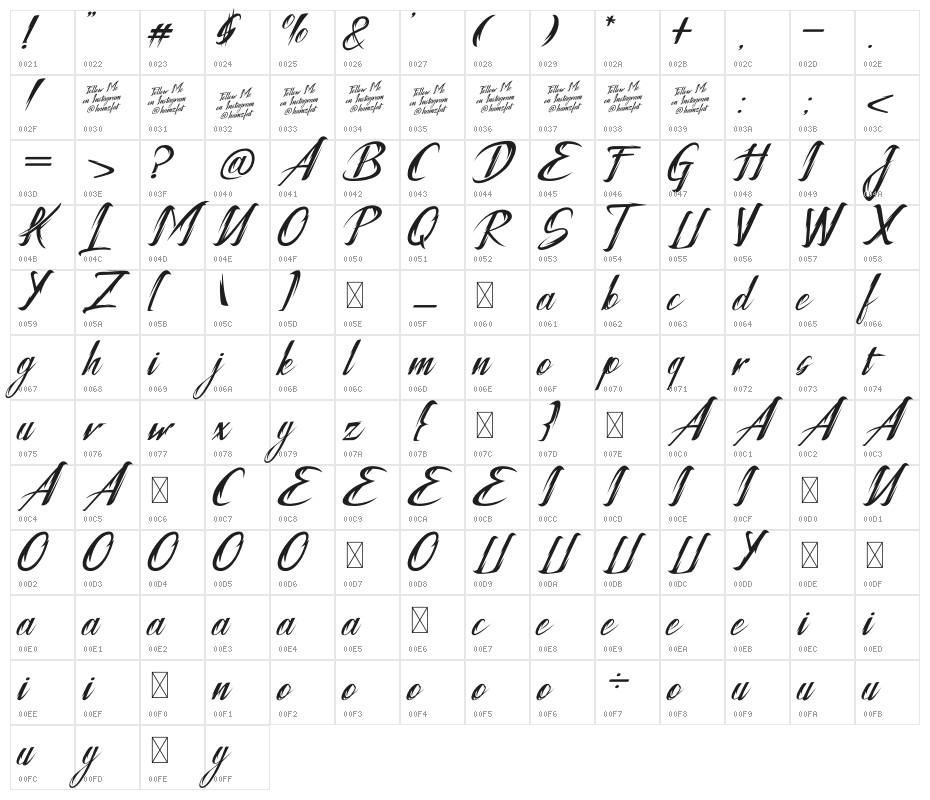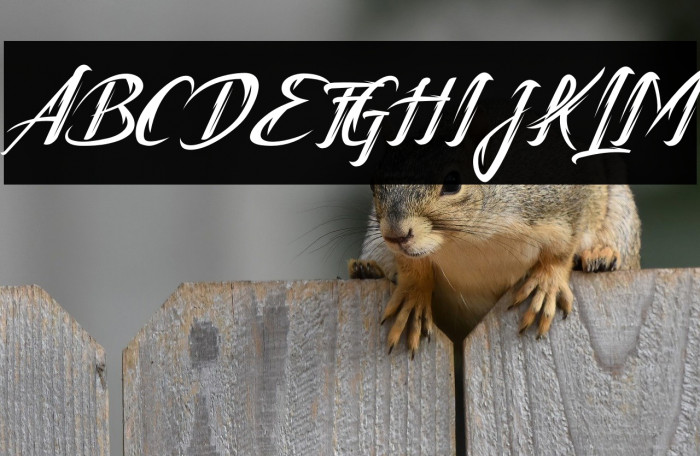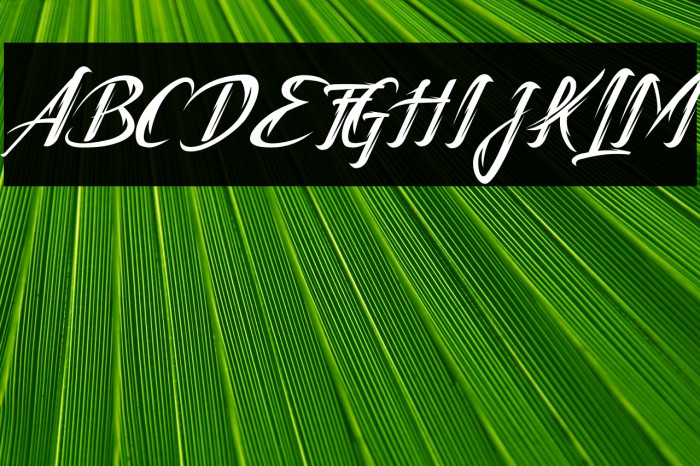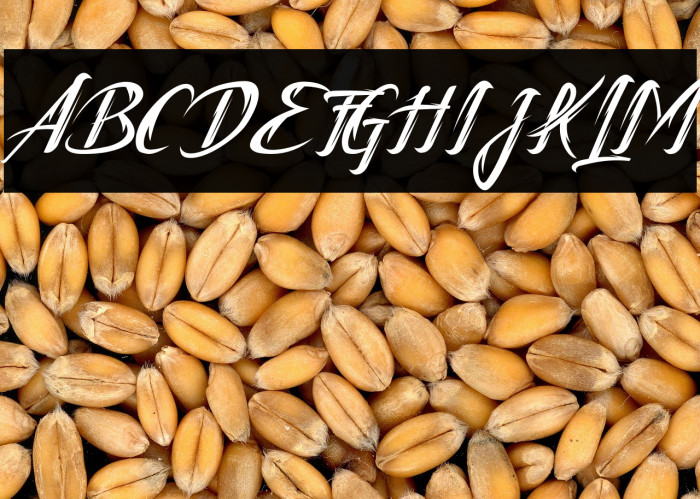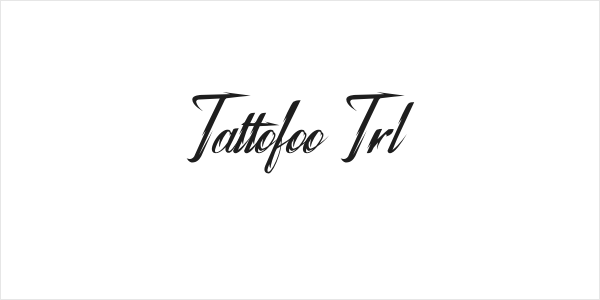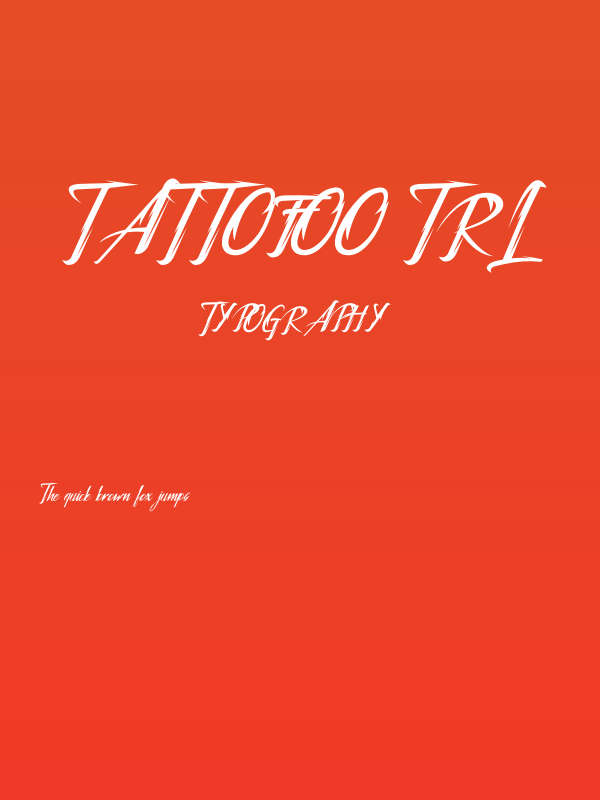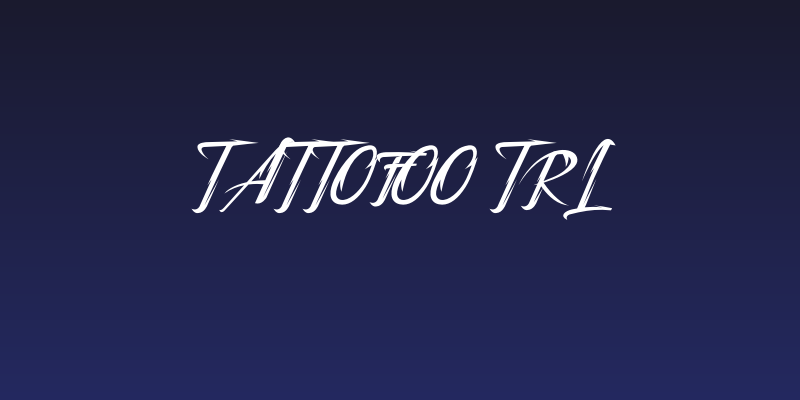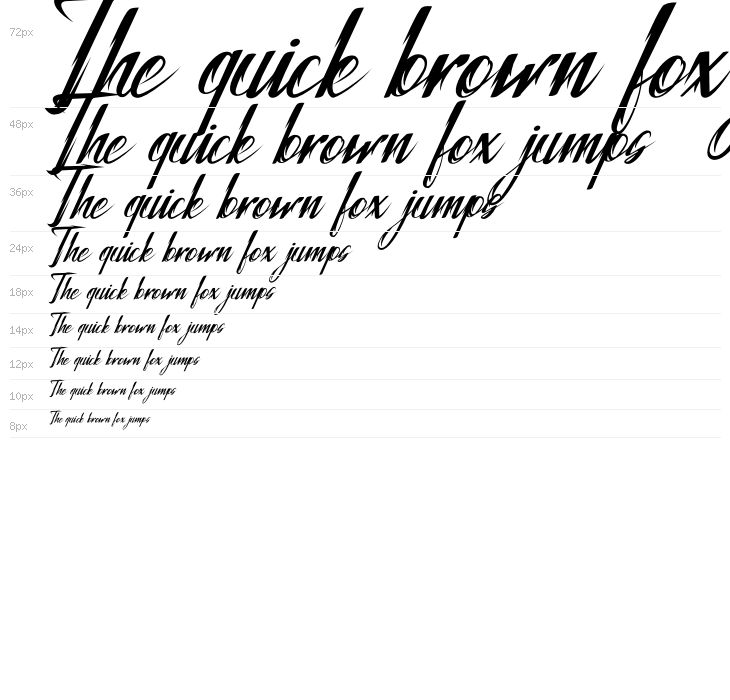
Tattofoo Trl Font
Tattofoo Trl Description
This font features a dynamic and expressive script style, characterized by its bold, sweeping strokes and elegant curves. The letters are highly stylized, with a sense of motion and fluidity that suggests a handwritten quality. The uppercase letters are particularly dramatic, with exaggerated flourishes and sharp angles, while the lowercase letters maintain a consistent flow and balance. The numbers and special characters are equally ornate, maintaining the overall aesthetic of the font. This font is ideal for making a bold statement and is well-suited for creative and artistic projects.
| Proposed Projects | Ideal for tattoo designs, artistic posters, branding for creative industries, and decorative invitations. |